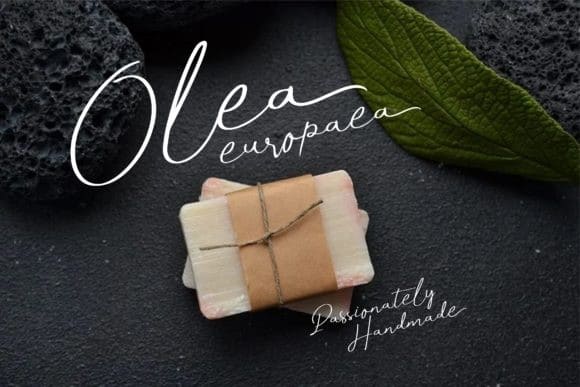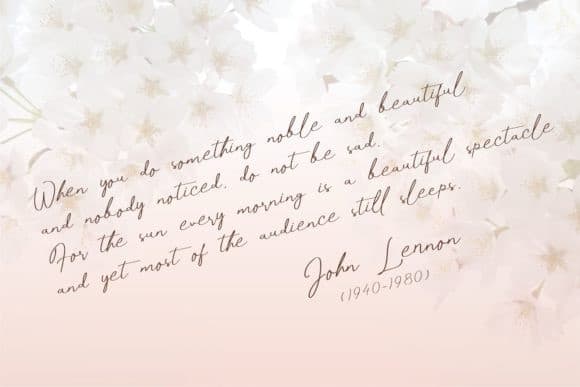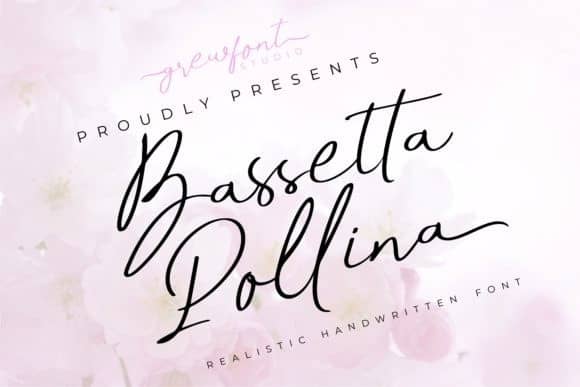
Bassetta Pollina Handwritten Font
Bassetta Pollina Handwritten Font has many alternative fonts to make it easier for you to write the way you want. Made from font designer named grewfont.studio. This stunning handwritten font is a stylish homage to classic calligraphy. Bassetta Pollina Handwritten Font features a varying baseline, smooth lines, gorgeous glyphs and stunning alternates. Fall in love with its authentic feel and use it to create gorgeous wedding invitations, beautiful stationary art, eye-catching social media posts, and cute greeting cards.